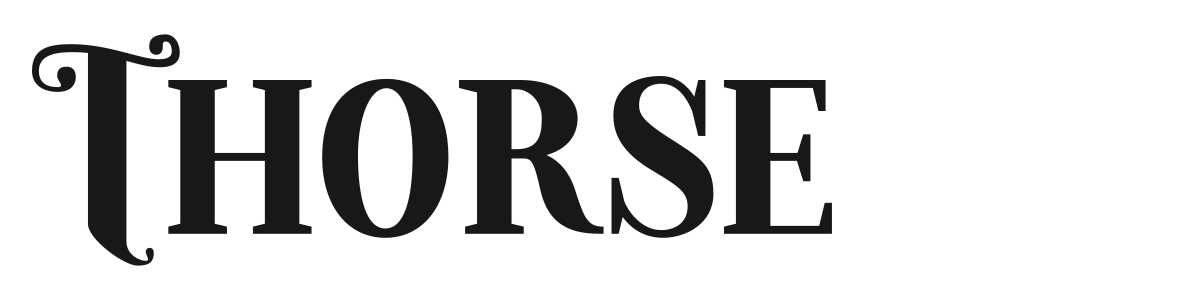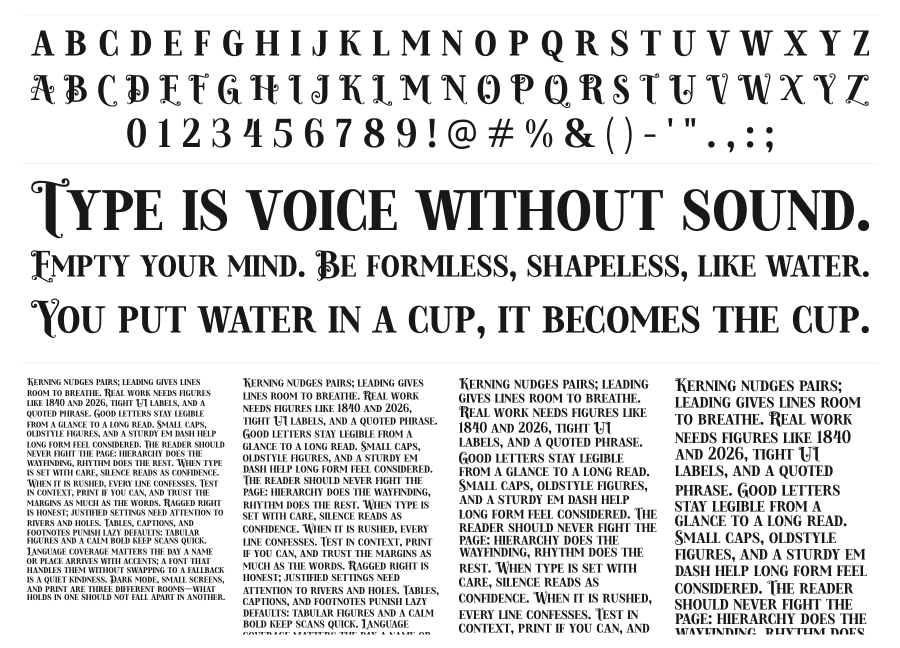
Thorse
by Faqih Fawaji
Thorse is a bold Didone-style serif with striking stroke contrast between heavy vertical stems and fine hairline horizontals. The wide, upright proportions give it a commanding presence that suits large headline settings and strong brand identities. It carries the formal authority of 19th-century press typography with a contemporary weight and polish.